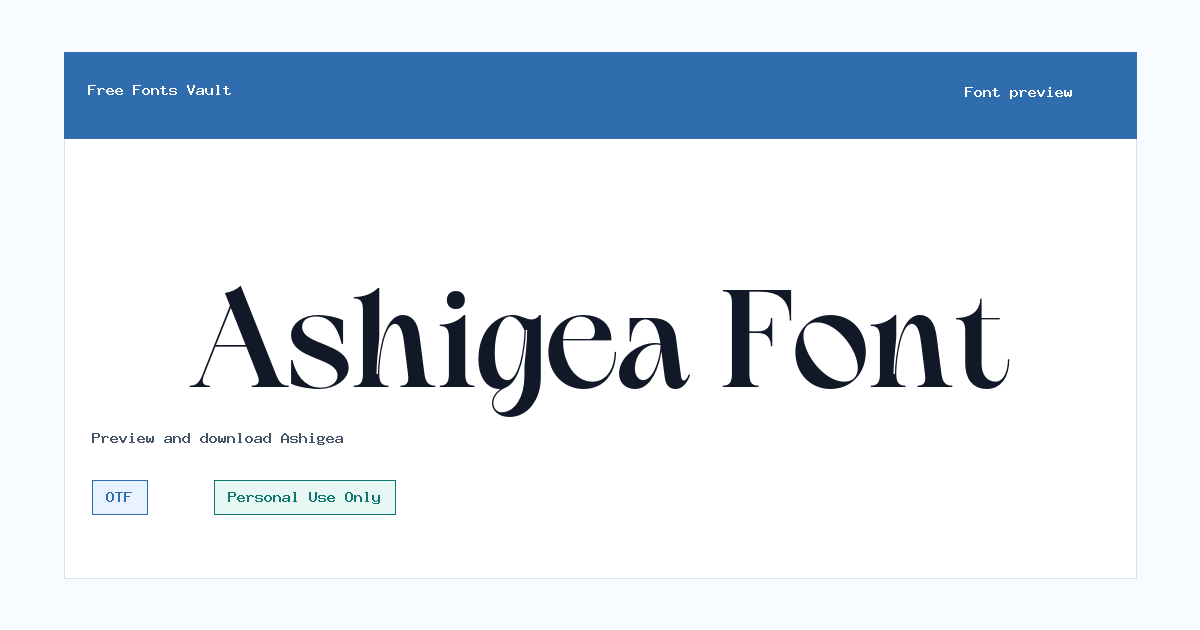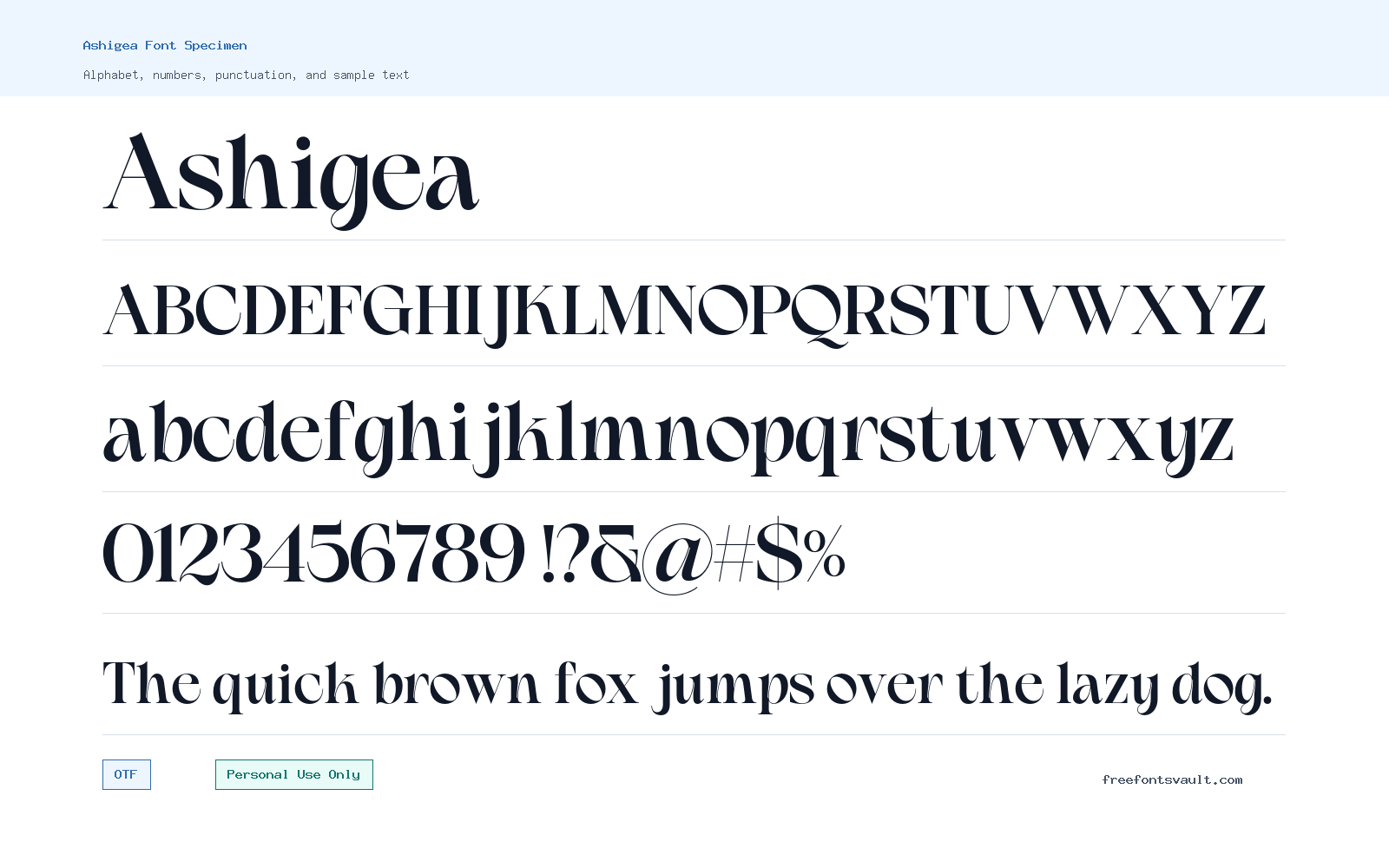
Ashigea
Ashigea is a serif font for personal design projects, offered as a regular OTF file. It is a good font to preview when you want a refined serif look for titles, branding drafts, posters, invitations, and presentation mockups.
Ashigea works best as a display-focused serif rather than a small-body text workhorse. The family is listed as a serif font, and the available file is a regular-weight OTF style, so it is most useful when you need one clear type style for headings, names, short phrases, and visual compositions. Try it first in the preview tool with the exact words you plan to use, especially if your design depends on a logo wordmark, a product name, or a short headline. Serif display fonts can change character a lot from one word to another, so checking spacing, uppercase shapes, and punctuation is more useful than judging it from a generic sample.
For logo work, Ashigea can be a starting point for personal concepts, mood boards, and client-style drafts, but the license is Personal Use Only, so commercial logo use should not be assumed. For posters and social graphics, test it at larger sizes where the serif details can show clearly. For web mockups, use it in hero headings, editorial-style banners, landing page concepts, or portfolio mockups, then pair it with a simple sans serif for navigation, captions, and body copy. If you use it in a longer layout, keep paragraphs short and check readability on mobile screens. A single regular style can still be very useful, but it does not provide the same range as a family with bold, italic, or multiple weights.
- Serif style suited to titles, names, short headings, and decorative layout work
- Single normal-weight style, useful for clean mockups and simple display typography
- Best used at medium to large sizes where serif details and letter spacing are easier to judge
- Personal logo concepts and branding mood boards
- Poster titles, quote graphics, and event-style layouts
- Invitation designs, name cards, and stationery mockups
- Website hero headings and editorial web mockups
- Portfolio presentations, typography studies, and non-commercial design drafts
- Short social media graphics where a serif display voice fits the message
What style of font is Ashigea?
Ashigea is listed as a serif font. It is best approached as a display serif for short text, headings, and visual design work rather than long paragraphs.
Is Ashigea good for posters?
Yes, it can work well for poster titles, short quotes, and event-style layouts. Preview your exact wording and adjust spacing so the serif details stay clear.
What should I pair with Ashigea?
Pair it with a simple sans serif for body text, menus, captions, and supporting copy. Let Ashigea handle the main title or highlight text so the layout stays readable.